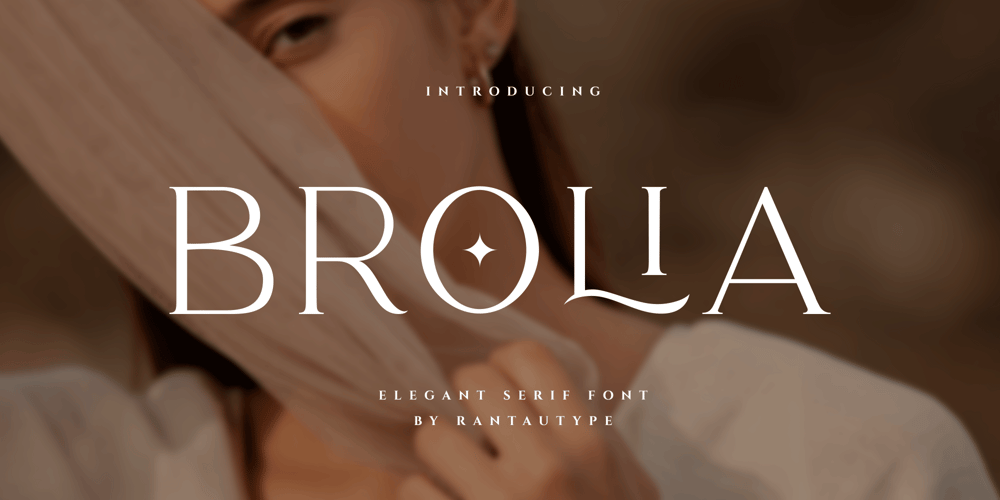
Brolia Font Family was designed by Yudi Pratama Chandra and published by RantauType. Brolia contains 2 styles and family package options. Brolia – a chic & elegant display modern serif with beautiful contrast and have unique ligature for optional. Specially designed for fashion-themed projects, perfectly suitable for creating elegant, chic, lifestyle design such as logos, title, and magazine, and more. Now you have more choice when using Brolia for typography.Brolia – separate in reguler and ligature so you can choice want to use ligature or not. For alternater in uppercase, numerals and punctuation. (See preview image for the full character map.)What you have: Standar character A-Z and a-z Numberial and Functional Alternate and ligature Multilinggual support Works on PC & Mac Simple installations Accessible in Adobe Illustrator, Adobe Photoshop, Adobe InDesign, even work on Microsoft Word. Thank you for your purchase!Hope you enjoy with our font!